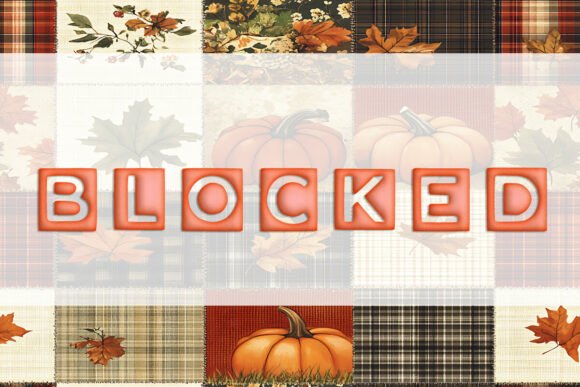
The Blocked Font: A Designer’s Dream Come True
I’ll never forget the time I was working on a branding project for a luxury fashion client. I had spent hours scouring the internet for the perfect font, but nothing seemed quite right. That was until I stumbled upon Blocked Font. It was love at first sight! The clean lines, the elegant curves, and the versatility – it was exactly what I needed to bring my client’s vision to life. In this article, I’ll share with you why Blocked Font has become a staple in my design toolkit and how you can make the most of it in your own creative projects.
- ✨ Versatility: Blocked Font is a chameleon that adapts seamlessly to various design contexts, from T-shirts and stickers to branding, magazines, and greeting cards.
- ✅ Elegant Design: The font’s sleek lines and curves exude luxury and sophistication, making it perfect for high-end branding and designs.
- 💻 Easy to Use: Blocked Font is incredibly easy to work with, even for those who are new to design or font manipulation.
While Blocked Font is an exceptional font, there are a few minor quirks to be aware of:
- ⚠️ Limited Ligatures: Some users might find the limited ligature options a bit restrictive, but this is a minor trade-off for the font’s overall excellence.
The Designer Inspiration Behind Blocked Font
Blocked Font was inspired by the works of renowned typographer, Adrian Frutiger. Frutiger’s clean, geometric designs have influenced generations of typographers, and Blocked Font’s creator aimed to capture that same essence. The result is a font that’s both timeless and modern, perfect for designers seeking a versatile, elegant typeface.
| Is Blocked Font suitable for body text? | While Blocked Font is primarily designed for headlines and titles, its clean lines and elegant curves make it suitable for body text in certain contexts, such as luxury publications or high-end branding. |